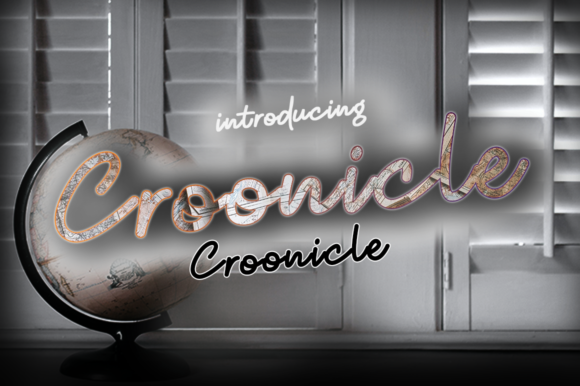
About Croonicle Font
Croonicle is a bold, casual and fun script font, that easily stands out of the crowd. It has a classy, elegant and modern look that can be used for logos, branding, invitations, stationery, wedding designs, social media posts, and much more!